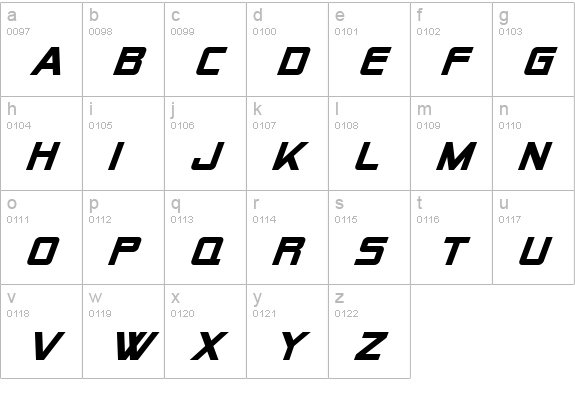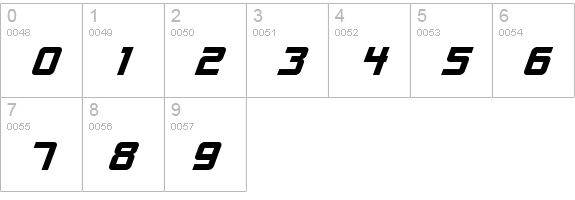
Alien Encounters Solid Bold Italic is a strong, high-contrast, italic variant in the Alien typeface family \xE2\x80\x94 well suited to headlines, attention-grabbing titles, and strong calls-to-action.
Alien Encounters Solid Bold Italic font is a futuristic and otherworldly typeface that will transport your designs to another dimension. With its bold and italicized style, this font exudes a sense of mystery and intrigue, making it perfect for projects that require a touch of the unknown. This unique font is ideal for sci-fi themed designs, posters, book covers, and more. Its solid and bold appearance commands attention, while the italicized slant adds a dynamic and edgy feel to your text. And the best part? Alien Encounters Solid Bold Italic font is available for free download at FontsMarket.com. So go ahead and give your projects an intergalactic flair with this captivating font today!